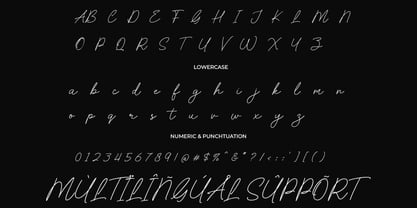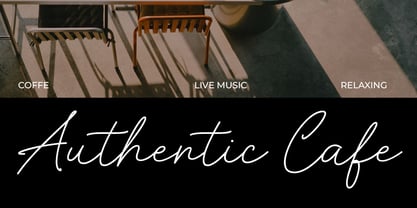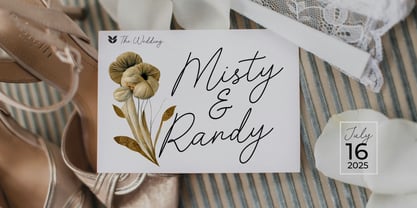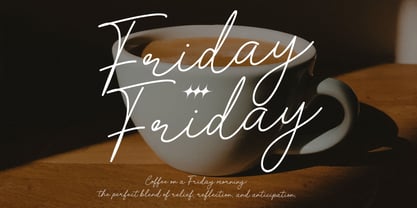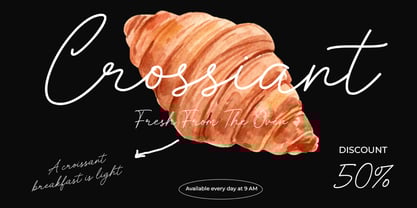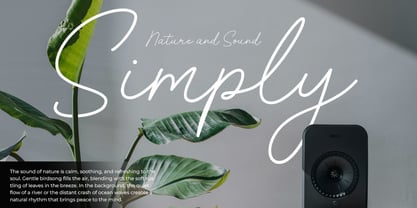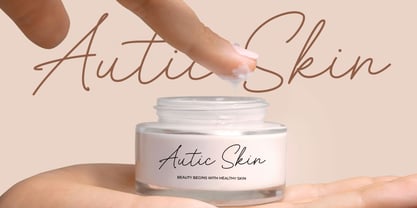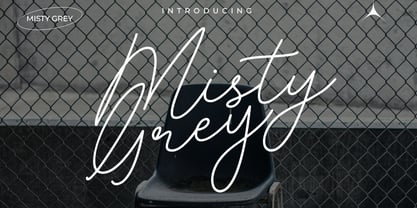
Misty Grey
The Misty Grey Font Family was designed by Aswangga Sadike and published by Salamahtype. Misty Grey contains 1 styles. More about this family
Misty Grey is a modern script font with a delicate monoline style that radiates elegance and charm. Perfectly suited for weddings, branding, business owners, logotypes, beauty products, merchandise, and more, Misty Grey adds a graceful flair that enhances your visual identity. Whether you’re crafting a romantic wedding invite or a stylish logo, this font delivers timeless appeal with a modern twist.
Misty Grey includes:
• Uppercase Lowercase
• Symbol and Punctuation
• Alternates and Ligatures
• Multilingual Support